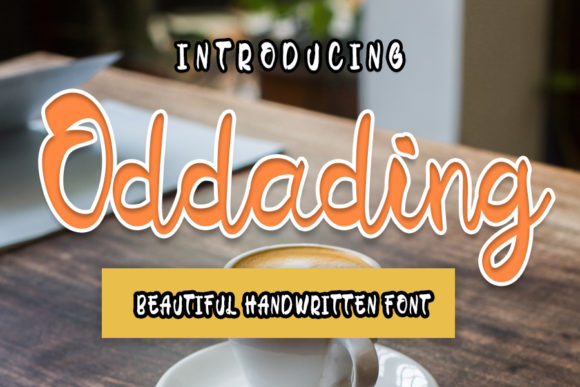
In a world craving authenticity, Oddading Font emerges as a beacon of originality, a script font that captivates with its charming imperfections and playful spirit. Picture your designs adorned with the whimsical strokes of Oddading, a font that dances across the screen like a playful melody. Its unique character shines through in logos, branding, posters, and DIY projects, adding a touch of magic to every creation.
Oddading isn't just a font; it's an expression of individuality, a reflection of your unique style. With its captivating curves and quirky edges, Oddading transforms ordinary words into extraordinary works of art. Unleash your creativity and let Oddading take center stage, allowing your designs to speak volumes without uttering a single word.
Whether you're a seasoned designer seeking a touch of whimsy or a novice venturing into the world of typography, Oddading is your perfect companion. Its user-friendly nature makes it accessible to all, inviting you to explore endless possibilities. Embrace the charm of Oddading and embark on a creative journey where imagination knows no bounds.
If you crave a font that speaks to your soul, a font that ignites your passion and fuels your creativity, then Oddading is your destined choice. Its enchanting aura will cast a spell on your designs, captivating audiences with its playful elegance. Step into the realm of Oddading and discover a world where fonts come alive, transforming your creations into masterpieces.